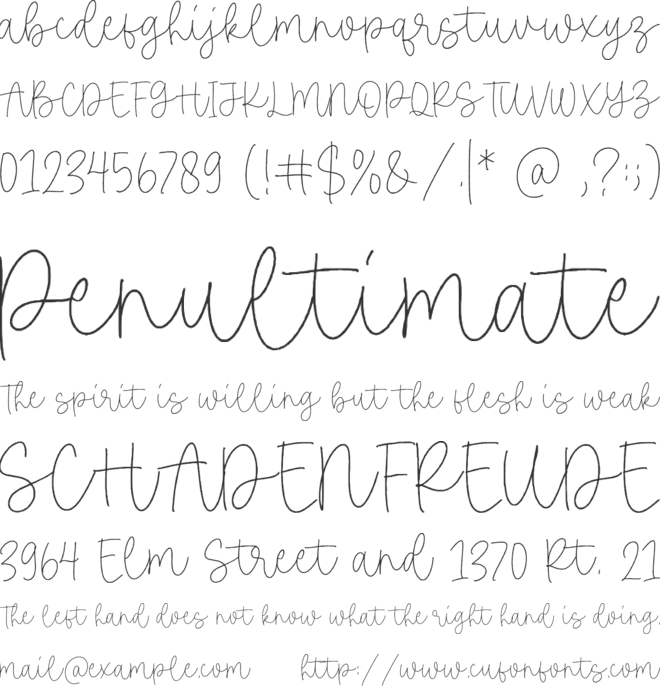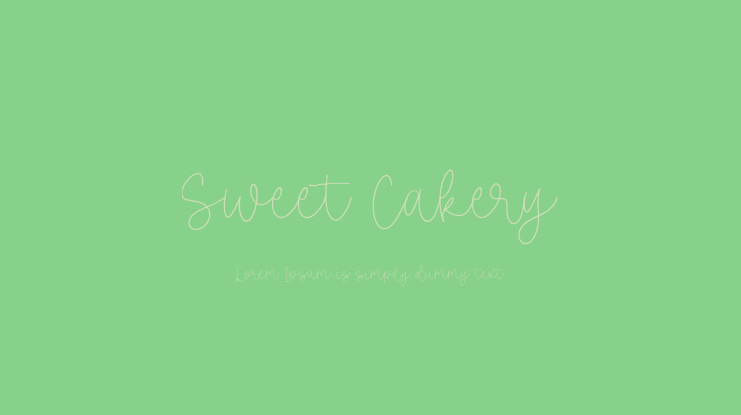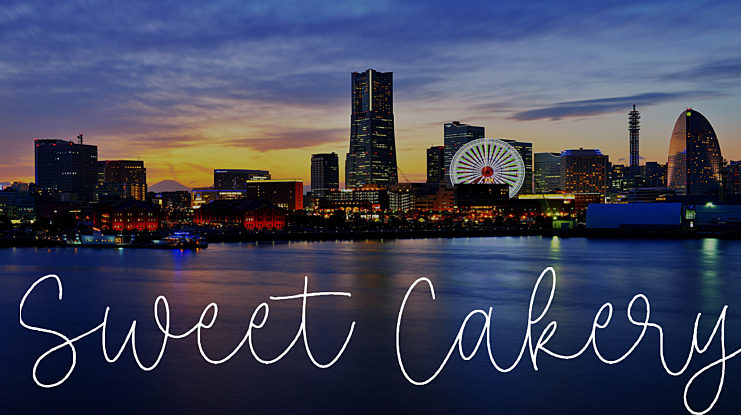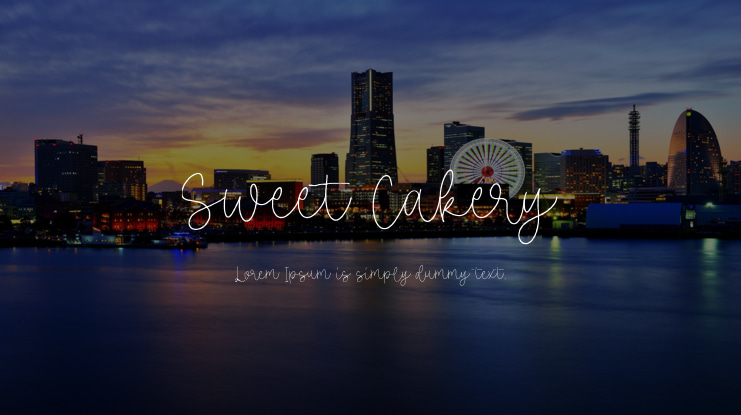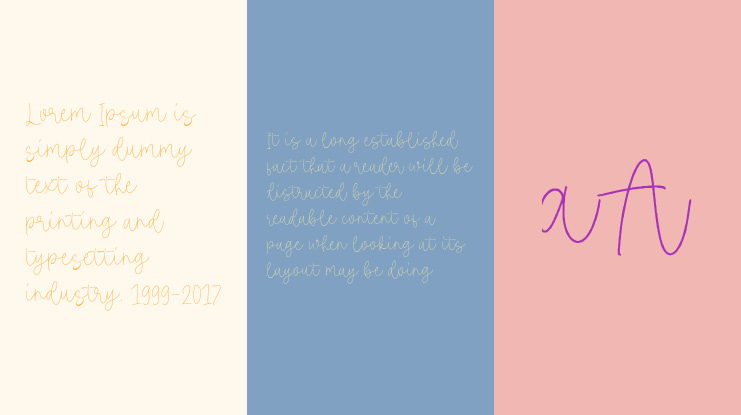
Sweet Cakery Font
Sweet Cakery - a monoline Sweet Font that's clean, elegant and perfect for a range of design projects! With its smooth, effortless lines and understated sophistication, this font is the perfect choice for those who want a modern look that's still timeless in its appeal.
Crafted with precision and care, this font is incredibly versatile and can be used for a range of design projects, including logos, branding, invitations, packaging, and more. With its simple yet refined aesthetic, it's sure to make a lasting impression on anyone who sees it.
- also multilingual support